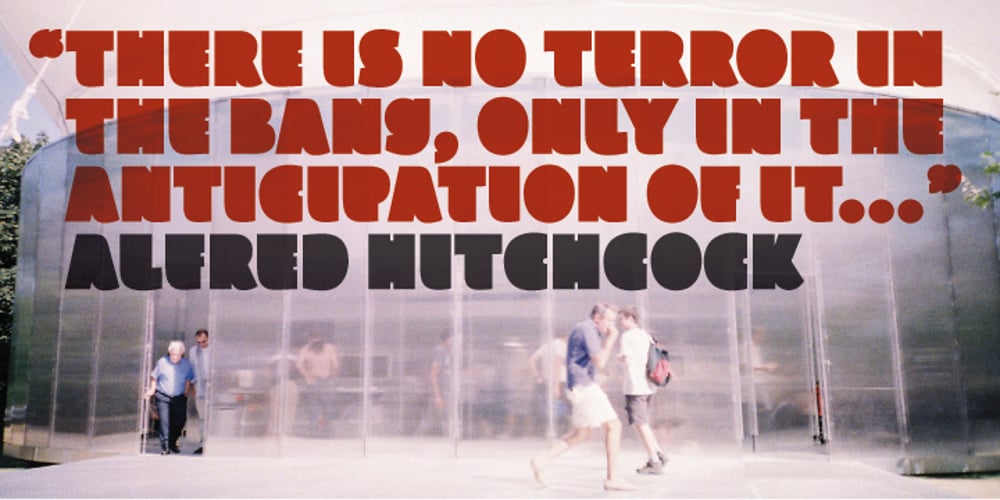
Leyton Font Family was designed by Ian Moore and published by The Colour Grey. Leyton contains 1 styles and family package options. A bold, friendly, impactful typeface. Ideal for filling with graphics and textures and layering with other type. Named in reference to the generously proportioned Alfred Hitchcock (born in Leytonstone). Leyton was designed to be as fat and punchy as possible without losing legibility. Each character fills up the space – throwing away counters in the process. Discounts available for certain projects – particularly charities and students.